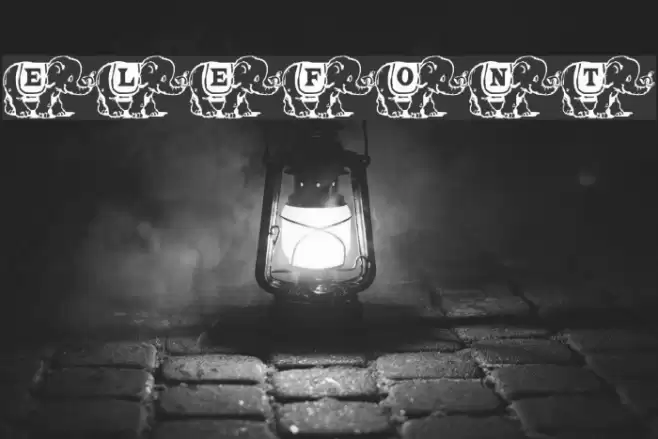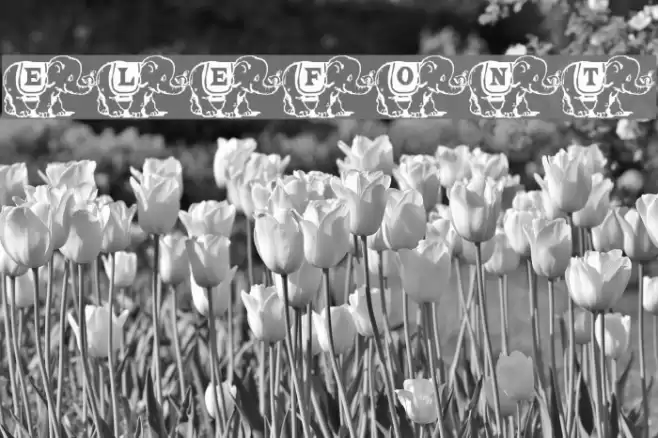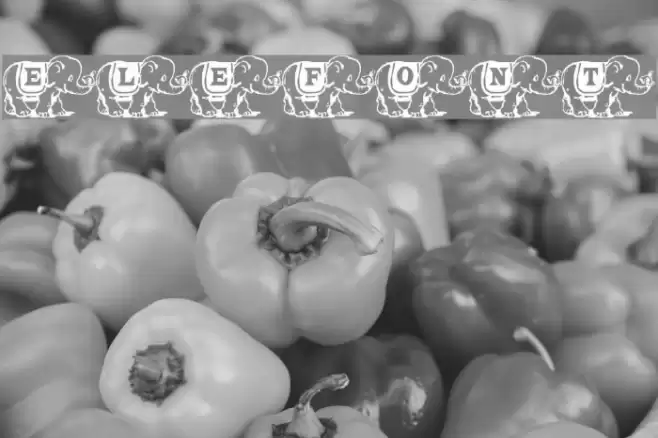
Elefont Font
Elefont Description
This whimsical and playful font features each letter encased within a cartoon elephant design, creating a unique and charming visual appeal. The elephants are drawn with a friendly and approachable style, each holding a letter on its side. The letters themselves are bold and clear, ensuring readability despite the decorative elements. This font is perfect for projects that aim to convey a sense of fun and creativity, such as children's books, playful branding, or educational materials. The combination of the bold letters and the detailed elephant illustrations makes it stand out as a decorative display font.
A playful font with letters encased in cartoon elephants, perfect for fun and creative projects from Decorative fonts.
- Proposed Projects: Ideal for children's books, playful branding, educational materials, and creative invitations.